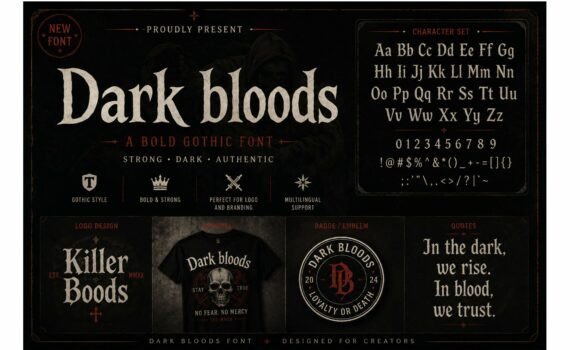
The Ultimate Font for Dark Creations
You’re in the middle of a design session, staring at a blank canvas, and the idea hits you – you need something bold, something dark, something that screams “I’m here to make a statement.” The creative spark is lit, and you know exactly what you’re looking for: a font that exudes power, drama, and a touch of the unknown. That’s where the Dark Bloods Font comes in – a gothic masterpiece designed to take your designs to the next level.
Dark Bloods Font is the perfect tool for creators who want to add a touch of darkness to their streetwear designs, music artwork, or tattoo designs. Its sharp letterforms and vintage gothic character make it a valuable asset for designers looking to create premium apparel graphics, posters, packaging, and badges that leave a lasting impression.
Dark Bloods Font Key Features
- Font Family: Dark Bloods is a unique, hand-drawn font designed to evoke a sense of mystery and darkness.
- Unique Characteristics: Features intricate, hand-drawn details and bold, dramatic lines that add to its dark and mysterious aesthetic.
Designer Review: Dark Bloods Font
Overall, I’m impressed with the Dark Bloods font. It’s a unique and edgy typeface that can add a touch of sophistication to any design project.
- Distinctive style: The font has a distinctive, hand-drawn feel that sets it apart from more generic sans-serif fonts.
- High contrast: The high contrast between thick and thin lines gives the font a dramatic, eye-catching effect.
- Wide range of weights: The font comes in a range of weights, from light to bold, making it versatile for different design applications.
- Readability: In smaller font sizes, the font can become difficult to read due to its intricate details.
- Lack of OpenType features: The font lacks advanced OpenType features, such as ligatures and contextual alternates, which can limit its use in complex typography projects.
Overall, I’d recommend the Dark Bloods font for designs where a bold, edgy look is required. However, it may not be the best choice for projects that require high readability or complex typography.
Tips for Getting the Most Out of the Dark Bloods Font
Use the Dark Bloods Font in combination with bold colors and dramatic imagery to create a striking design.
Experiment with different font sizes and styles to add depth and interest to your design.
Use the font to create a sense of drama and tension in your design.